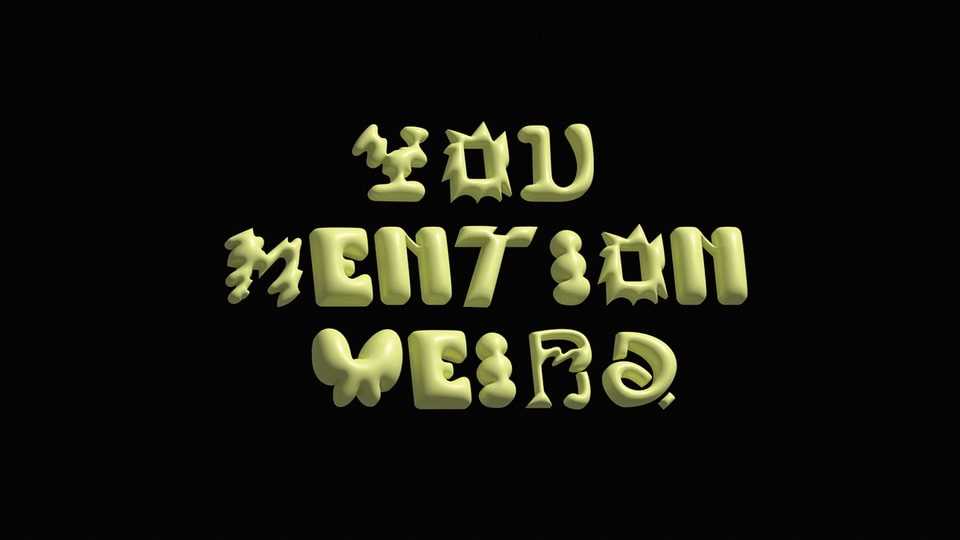
Download You Mention Weird font, a funky experimental typeface that embraces imperfection and fun 🙂 The font is crafted with playful irregularities and whimsical details, capturing the essence of spontaneity and creativity.